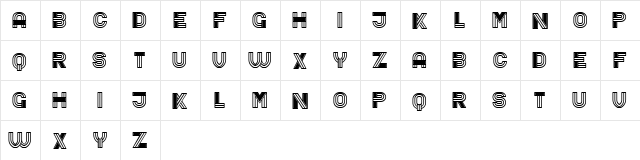
Bathroom Regular
Design Context for Bathroom Typeface
Bathroom is a composed and adaptable typeface that performs quietly and consistently across a wide range of design contexts.